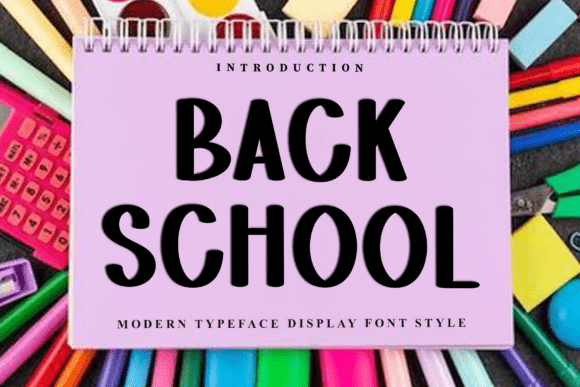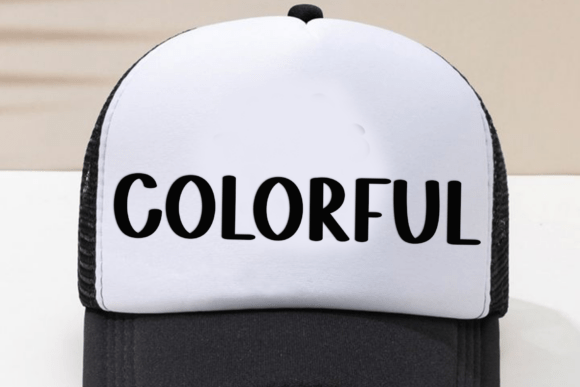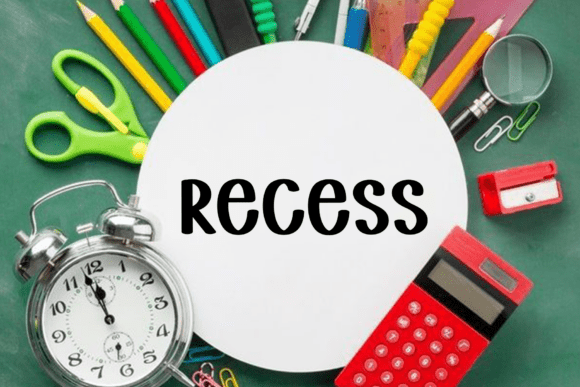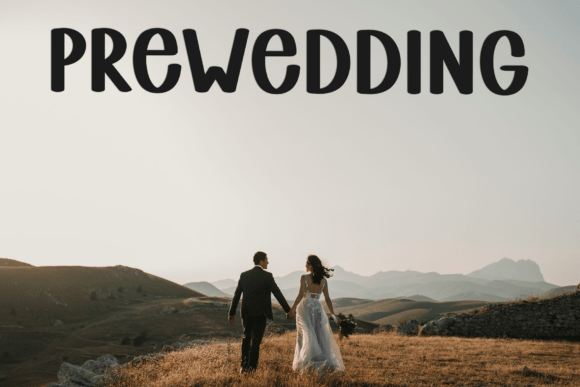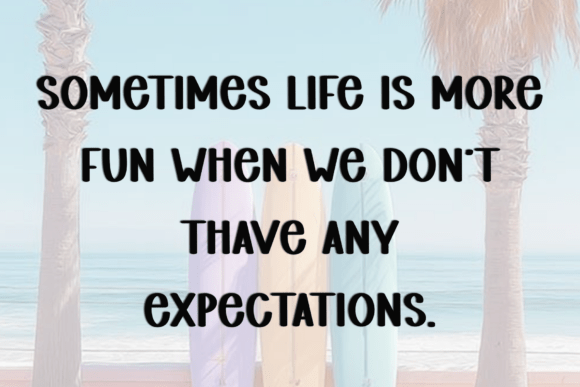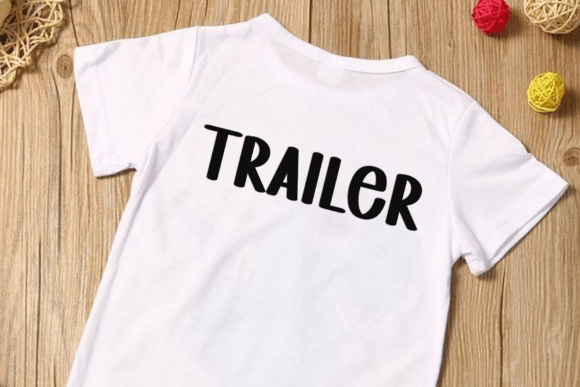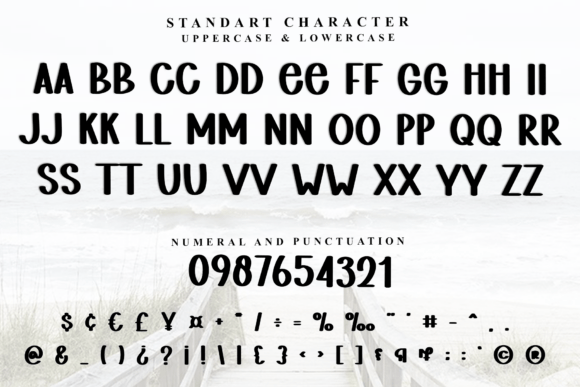
The Magic of the Holiday Season in Typography
As you sit down to craft the perfect holiday card or design a festive gift tag, the right font can make all the difference. It’s a moment of creative joy, where you get to bring a little bit of magic to the people you care about. And that’s exactly what the Back School Font is all about – capturing the spirit of the holiday season in a way that’s both festive and merry.
With its decorative elements and whimsical flair, the Back School Font adds a touch of enchantment to your designs, perfect for greeting cards, gift tags, and holiday-themed projects. Whether you’re a seasoned designer or just looking for a way to add some cheer to your typography, this font is a valuable addition to your toolkit.
Key Features of Back School Font
- Font Family: Back School Font is a unique and playful sans-serif font, ideal for educational materials and children’s content.
- Unique Characteristics: Back School Font features a distinctive, rounded design with a subtle nod to traditional chalkboard writing, making it a perfect fit for educational and creative projects.
Back School Font Review
As a designer, I was intrigued by the Back School Font and decided to give it a try. Here’s my honest review.
- The font’s playful and educational vibe is perfect for schools, educational institutions, and websites targeting young audiences.
- The font’s varied weights and styles make it versatile for different design applications, from headings to body text.
- The font’s legibility is good, especially in larger sizes, making it suitable for signage, posters, and other display-based designs.
- The font’s style can be a bit overwhelming for more formal or professional designs, which might limit its use in certain industries or applications.
- The font’s character set is not extensive, which might be a concern for designers who need to support multiple languages or special characters.
- The font’s weight and style variations can be inconsistent at smaller sizes, which might affect readability.
Overall, the Back School Font is a fun and creative font that’s perfect for educational and playful designs. While it has some limitations, it’s a great choice for designers looking to add a unique touch to their projects. With a bit of caution and consideration for the font’s limitations, designers can achieve great results with this font.
The Back School font is a fun, playful font that is perfect for educational materials, children’s books, and creative projects.
Some common use cases for the Back School font include:
1. Educational posters and flyers
2. Children’s book illustrations and text
3. Creative projects, such as party invitations and social media graphics